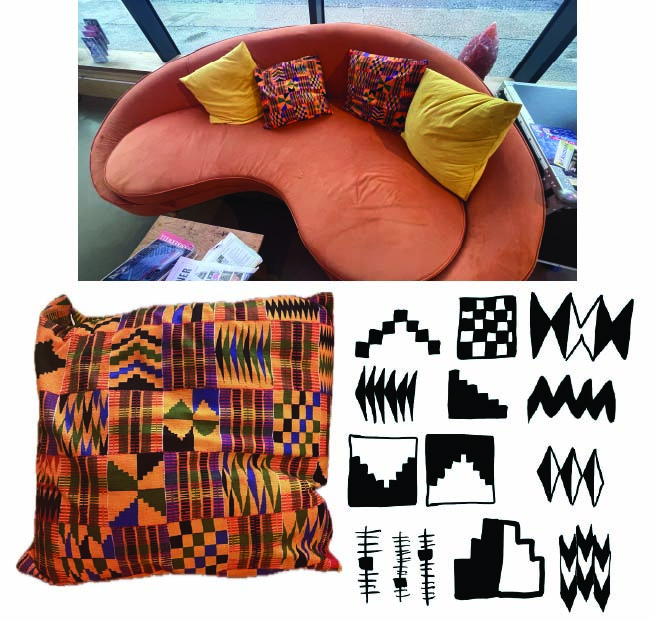
My font draws inspiration from the visual aspect of Theatre Peckham . There were Ghana Kente print pillows in the cafe of the Theatre, so I looked at how I can use in the patterns within the pillow to create individual letters. Theatre Peckham like to represent the diverse community of Peckham and within the theatre 69% of the trustees are black, asian or ethnically diverse which shows how they like to create an inclusive space.